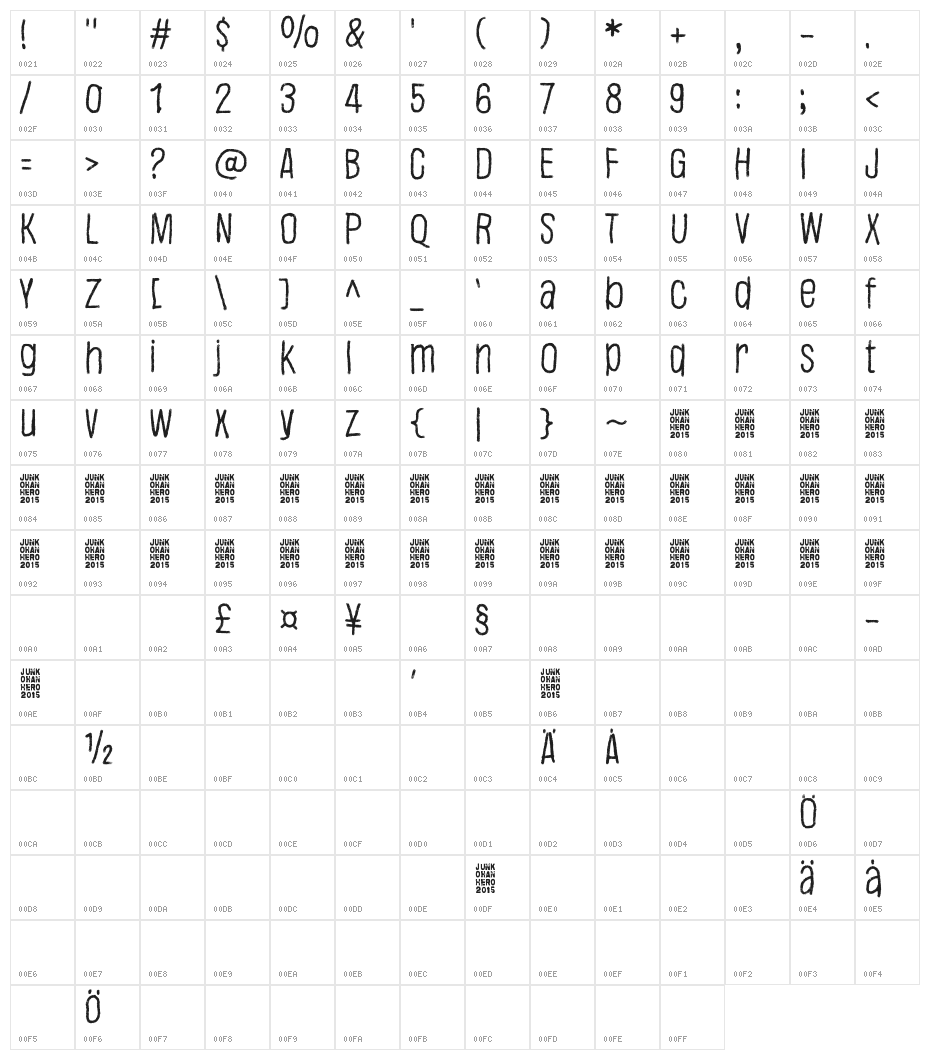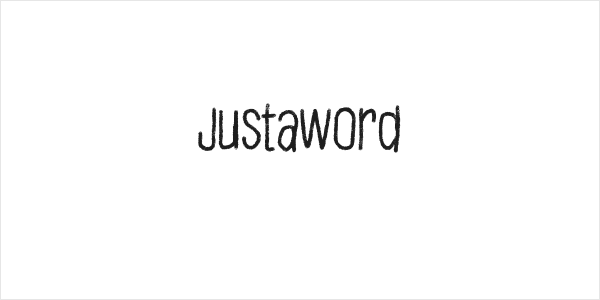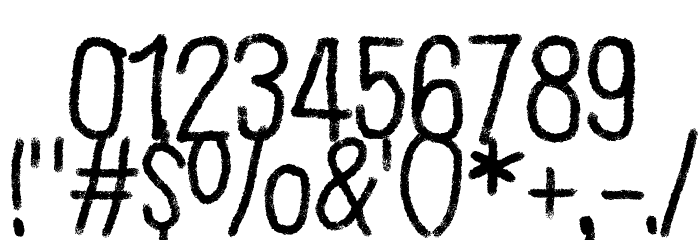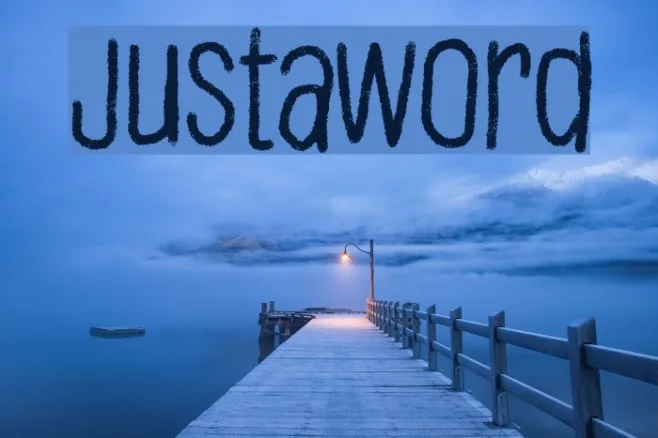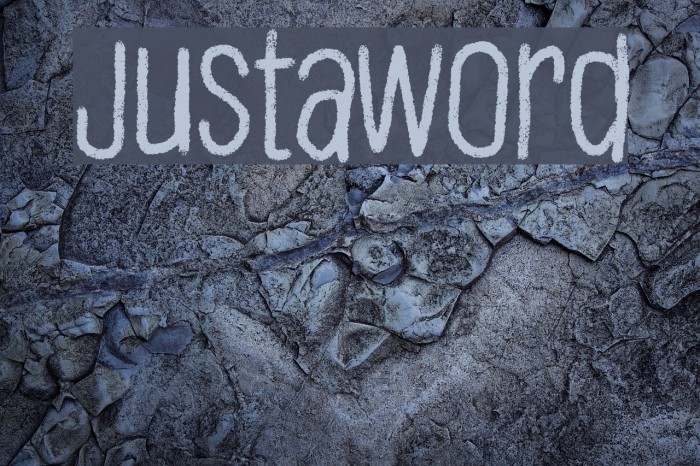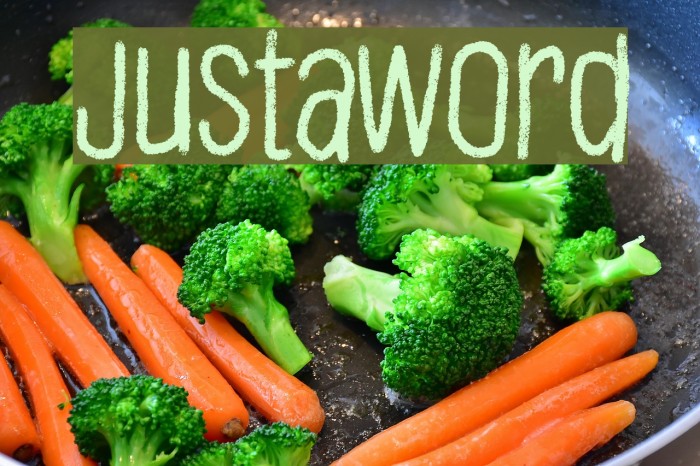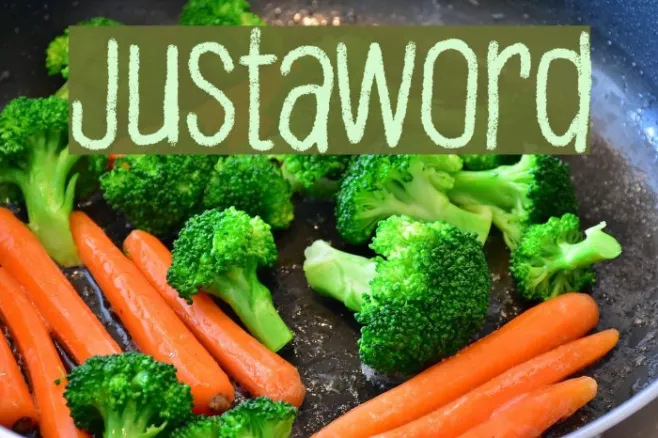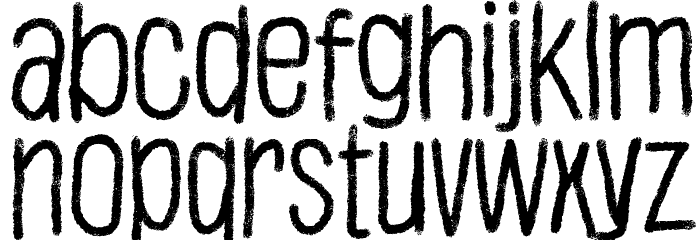
Justaword Font
Justaword Description
This font features a hand-drawn, textured appearance that gives it a casual and organic feel. The letters are slightly irregular, with a rough, chalk-like texture that adds a playful and artistic touch. The uppercase and lowercase letters maintain a consistent style, with rounded edges and a slightly condensed form. Numbers and special characters are crafted with the same textured style, ensuring uniformity across all characters. This font's unique texture and informal style make it stand out, providing a sense of creativity and approachability.
| Overall Style | Casual, Artistic |
| Use Case | Headlines, Artistic projects, Informal branding |
| Proposed Projects | Ideal for creative projects such as posters, greeting cards, and artistic branding. It can also be used for children's books, DIY crafts, and any design requiring a playful touch. |